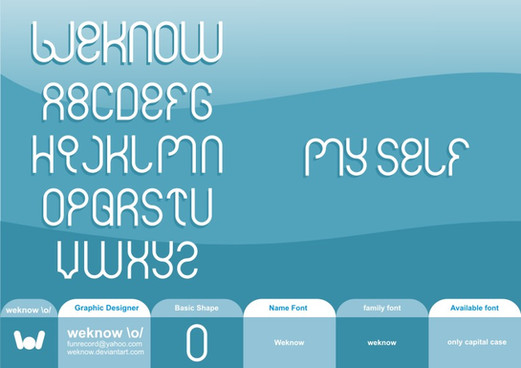
Hey, I've used this font for my portfolio sites logo! ^_^ [link]
Sorry Gan legibility-nya kurang...
Tp buat artistik keren...
Btw mirip font CLUB ya??
Sbnernya utk keperluan desain lbh suka font yg kygni coz jenis font Miscellaneous ini memberi kesan yg dekoratif dan ornamental.... Mantap Gan.....
Btw bikinnya pake paan Gan? Fontografer kah??
bikin pake coreldraw, makasih juragan akhirnya di kasih jempol